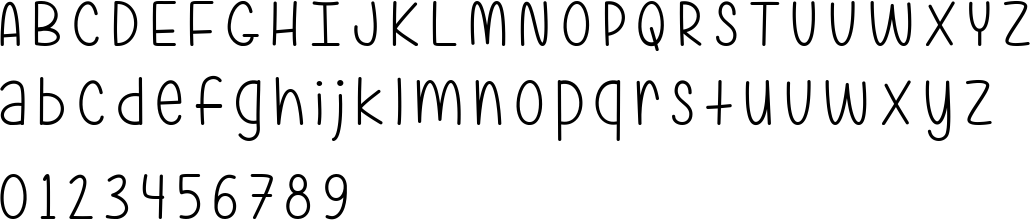
Are You Freakin Serious Font
Are You Freakin Serious font By Misti
Are You Freakin Serious
About the Are You Freakin Serious Font
Are You Freakin Serious is a cute, handwritten font that is perfect for your craft and design projects!